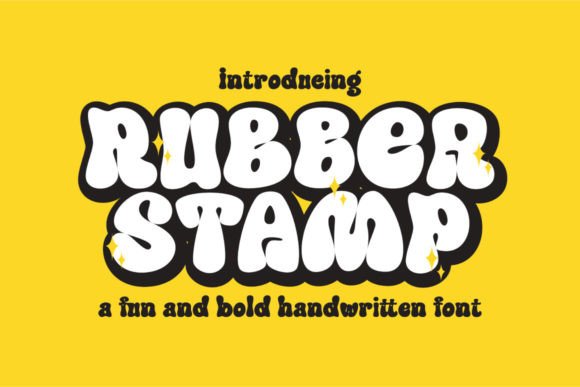
In a realm where visual expression reigns supreme, where words dance in harmony with design, there exists a font that possesses the uncanny ability to transport you back in time, evoking the charm and allure of a bygone era. Rubber Stamp Font, a captivating display typeface, embodies the spirit of nostalgia, imbuing your creative endeavors with an enchanting vintage retro aesthetic. From intricate invitations and captivating logos to eye-catching posters and whimsical flyers, Rubber Stamp Font stands as an artistic chameleon, seamlessly adapting to a myriad of design landscapes.
Allow your imagination to run wild as you explore the boundless possibilities offered by this typographic treasure. Envision the warmth and charm of a lovingly handwritten letter, the authenticity of a weathered sign bearing tales of times gone by, or the playful spirit of a carnival poster beckoning you to join the revelry. With Rubber Stamp Font at your fingertips, the ordinary becomes extraordinary, the mundane transformed into a visual feast.
This meticulously crafted font family boasts a diverse range of glyphs and ligatures, accessible with ease via PUA encoding, inviting you to unleash your creativity and explore the full spectrum of typographic artistry. Whether you seek to add a touch of whimsy to your personal projects or captivate your audience with stunning professional designs, Rubber Stamp Font stands as your steadfast companion, ready to elevate your vision and leave an indelible mark on the world.
Embrace the nostalgia, revel in the retro charm, and unleash the boundless creativity within you. Rubber Stamp Font awaits, poised to transform your designs into captivating works of art that evoke a sense of wonder and longing for simpler times.